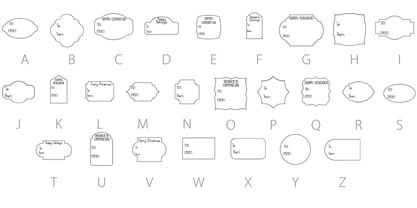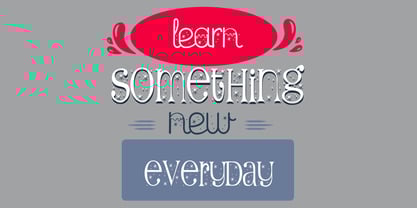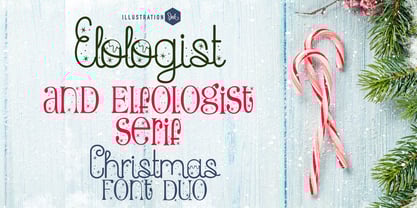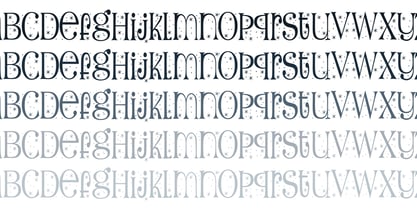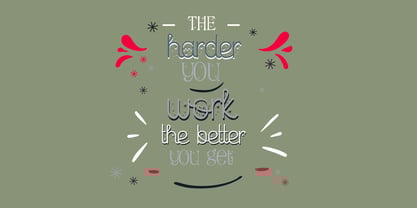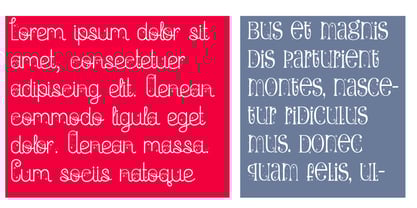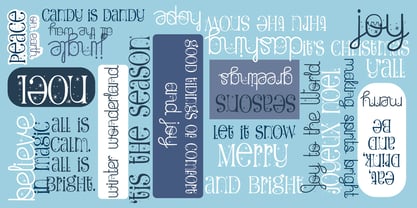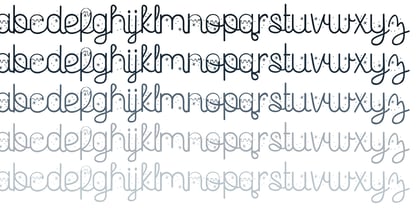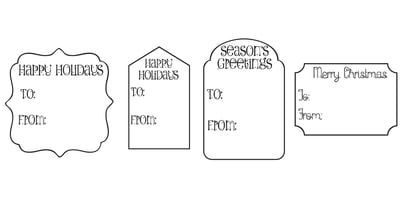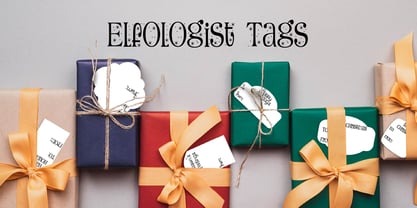
PN Elfologist
This hand-crafted font duo is a whimsical script with snow and a perfectly coordinated serif font, as well as a bonus tag dingbat file. Hand-crafted fonts can be either formal or informal, and they can be used for a variety of purposes. Some of the characteristics of handwritten fonts include: The letters are not perfectly uniform in size or shape. There may be slight variations in the spacing between letters and words. The font may have a "wiggly" or "squiggly" appearance. The font may be difficult to read at small sizes. Handwritten fonts can be a great way to add a casual touch to your designs. They can also be used to create a sense of nostalgia or whimsy. However, it is important to choose a handwritten font that is appropriate for the project you are working on. A formal handwritten font may not be appropriate for a casual invitation, while an informal handwritten font may not be appropriate for a corporate document.